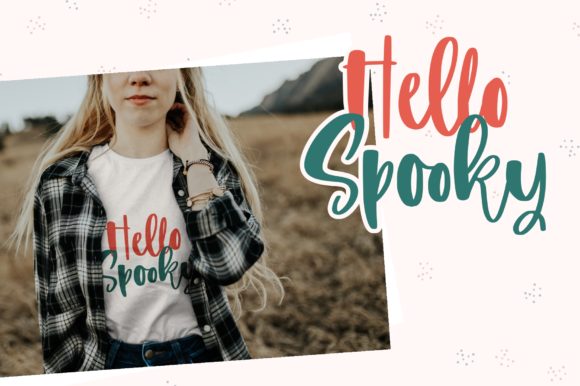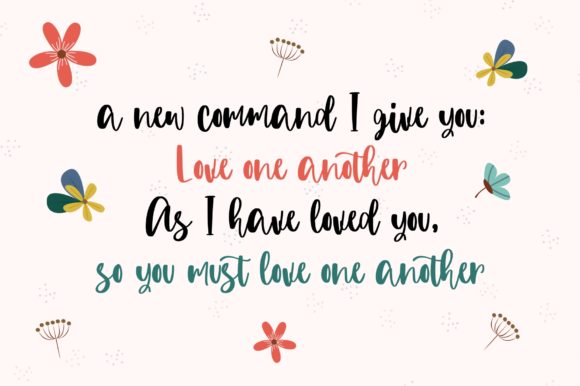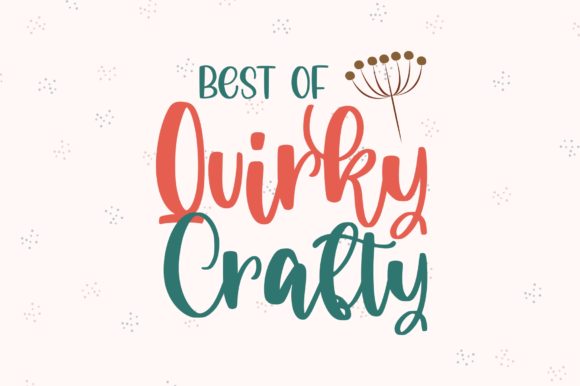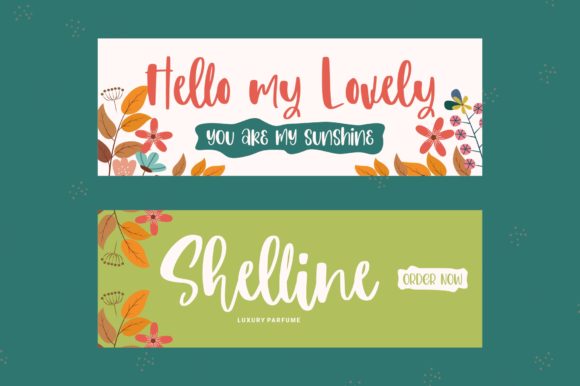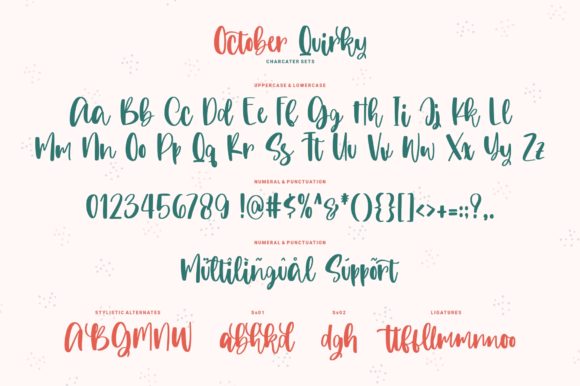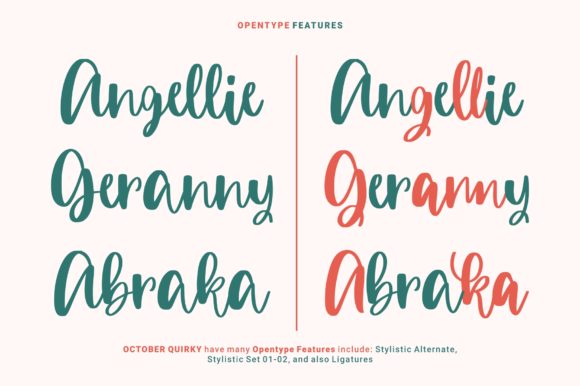
October Quirky Font
About October Quirky Font
October Quirky is a sweet and relaxed handwritten font. Whether you’re looking for fonts for Instagram or calligraphy scripts for DIY projects, this font will turn any creative idea into a true piece of art!